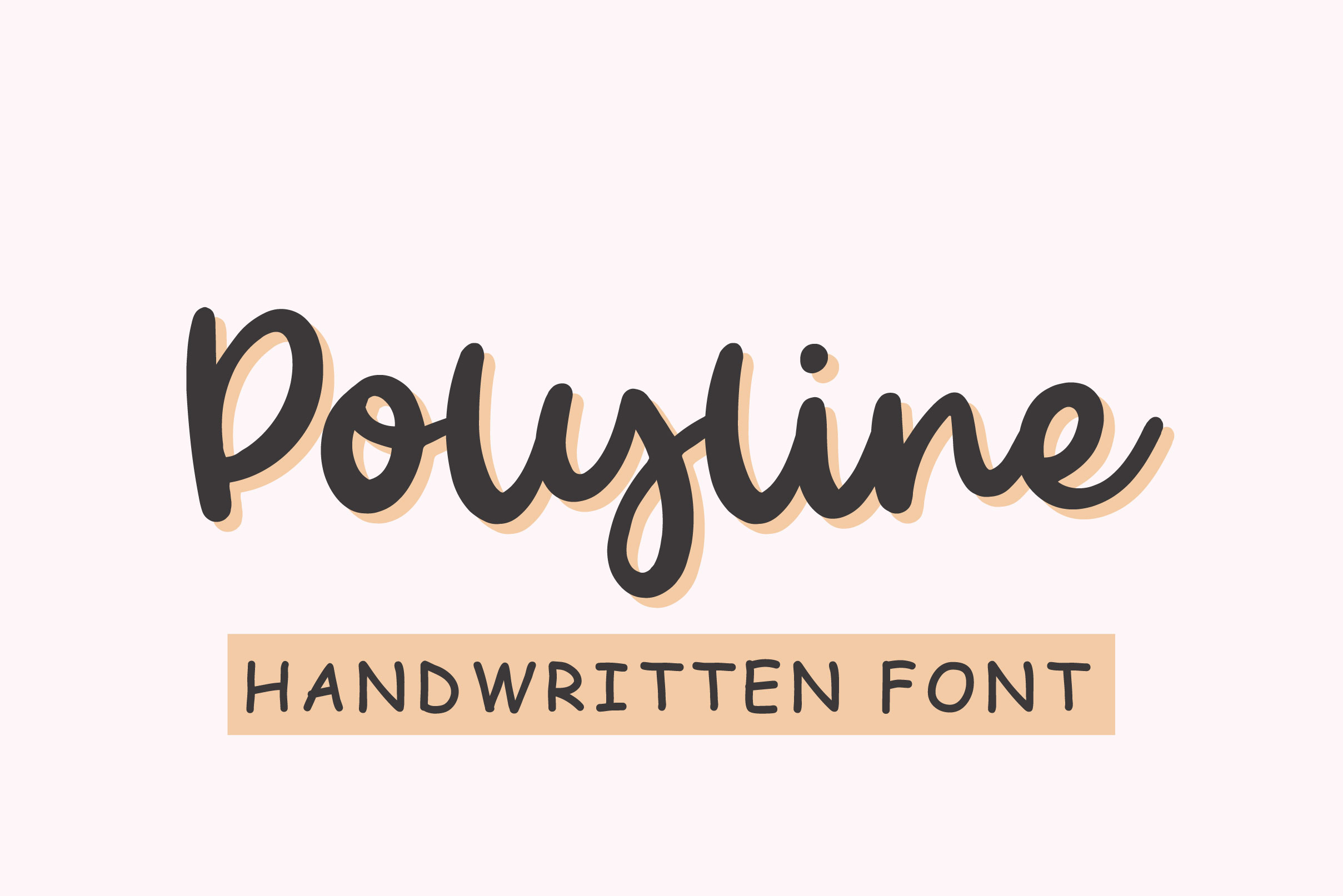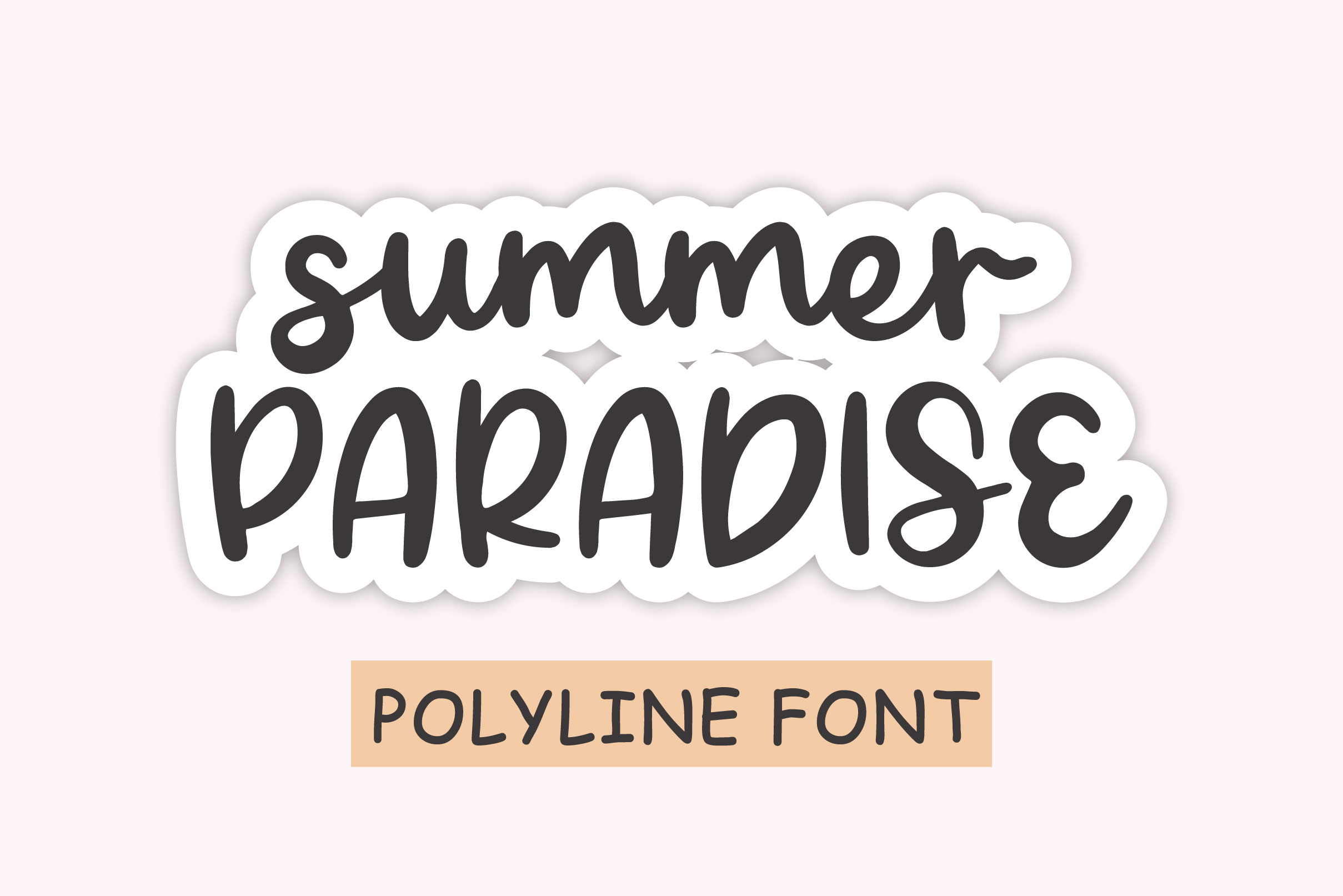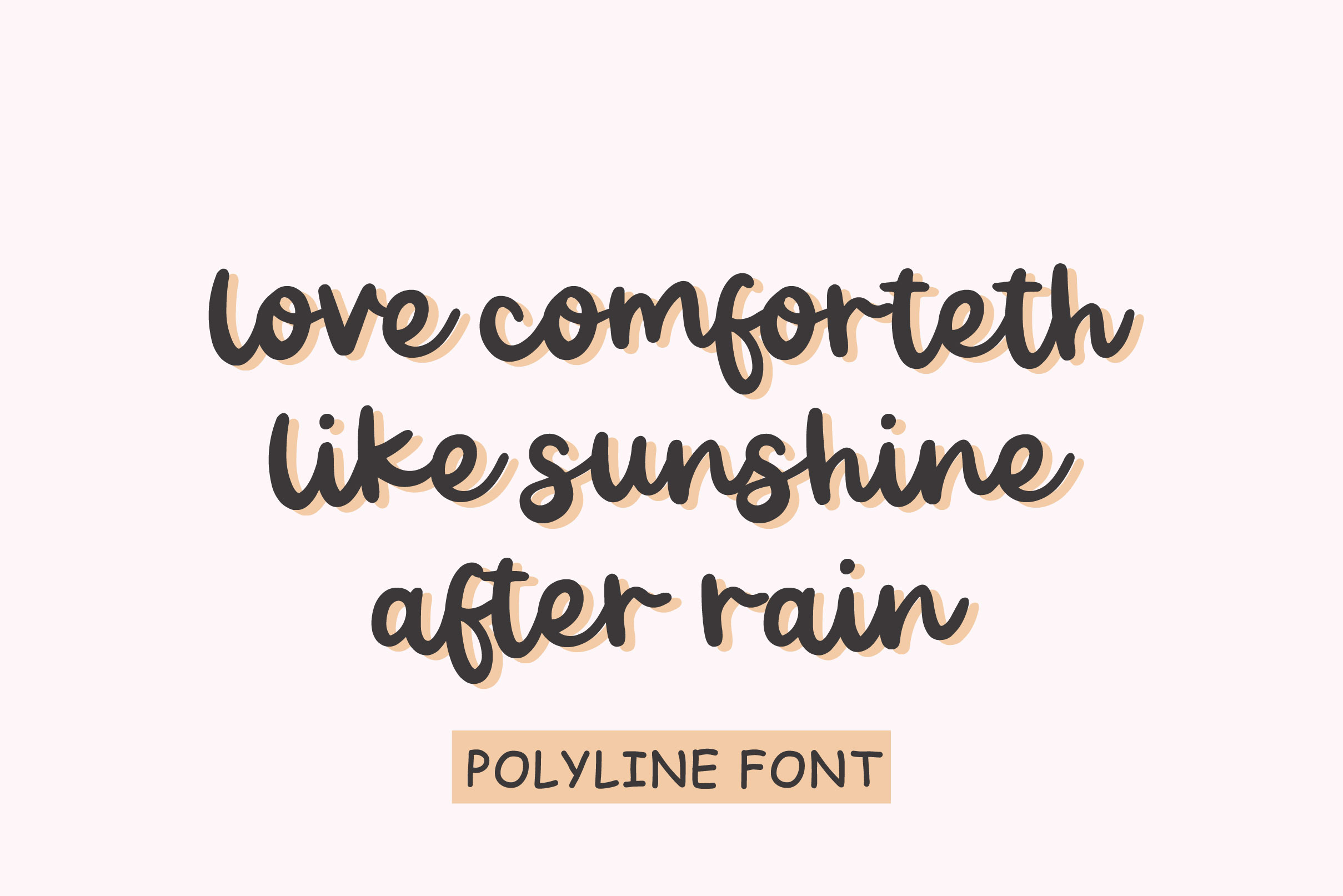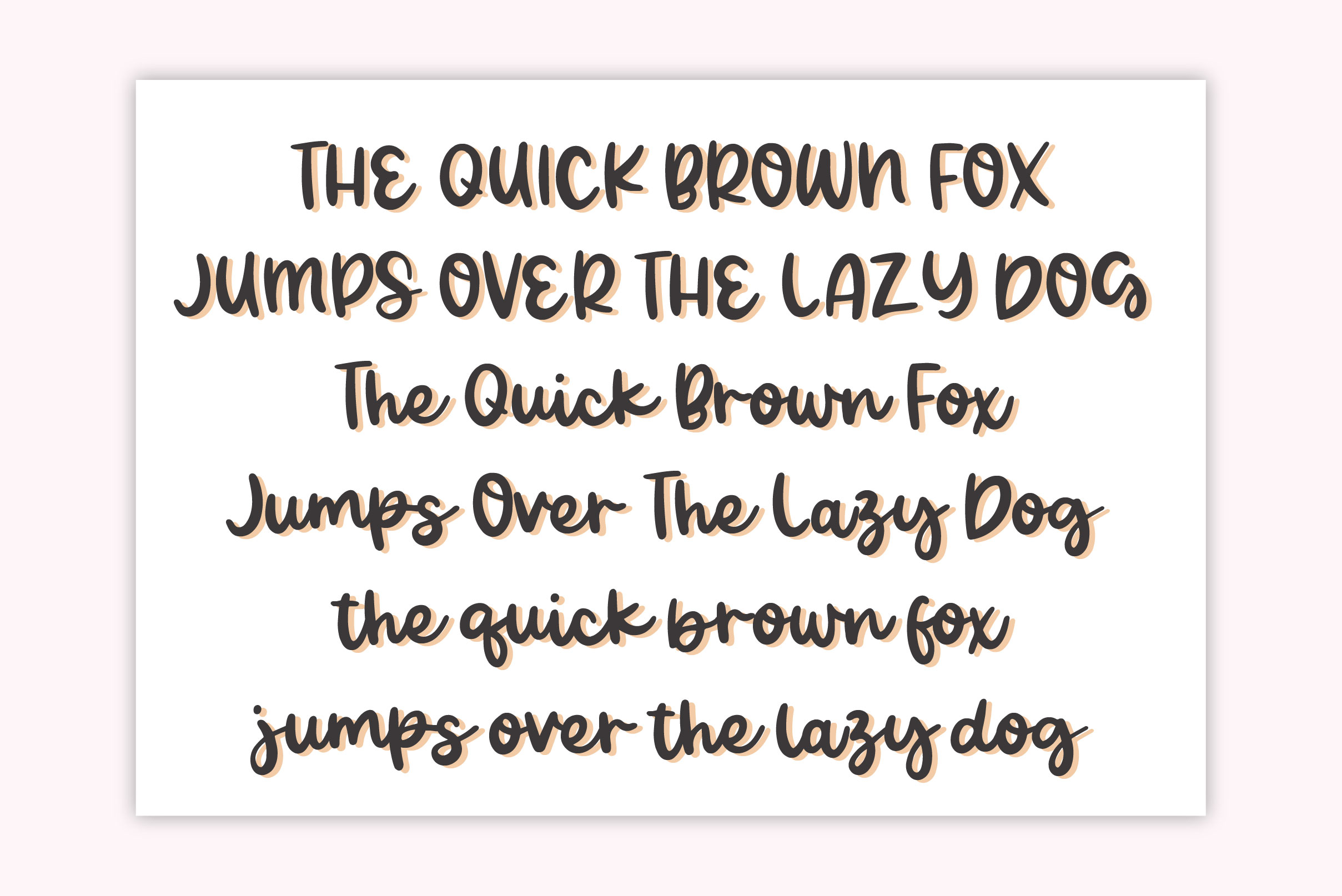
Polyline Font
Polyline Script Font is a bold and fun script font, suitable for headlines and other display purposes. This font is a great combination of classic style merged with modernity for truly timeless typography.